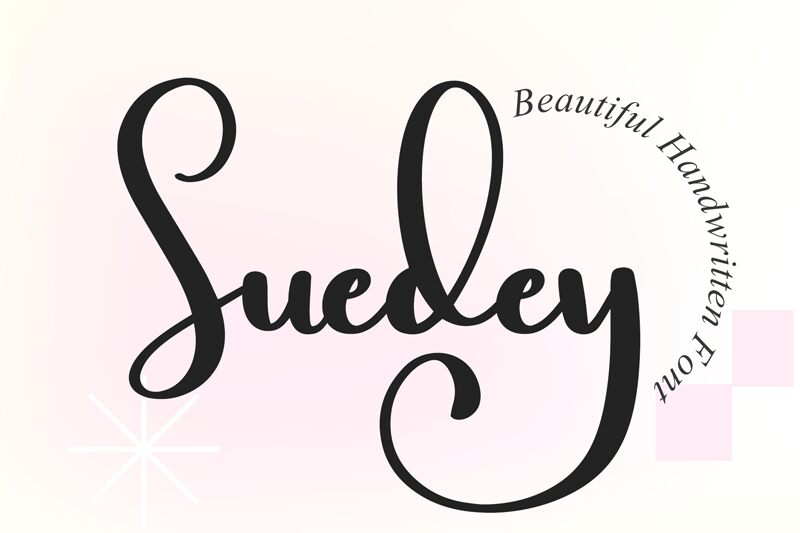
Suedey, a stunning calligraphic font designed by Bearytype, boasts of its elegant curves and fluid strokes. With its semi-light weight, Suedey is perfect for creating a timeless and effortless aesthetic to any design project. Its beautiful calligraphic style adds a touch of sophistication to wedding invitations, greeting cards, and other stationery. This font is also suitable for branding projects that require an air of elegance such as luxury fashion brands or high-end restaurants. Embodying the beauty of handwriting in digital form, Suedey is the perfect choice for those who want to add a touch of refined artistry to their work.